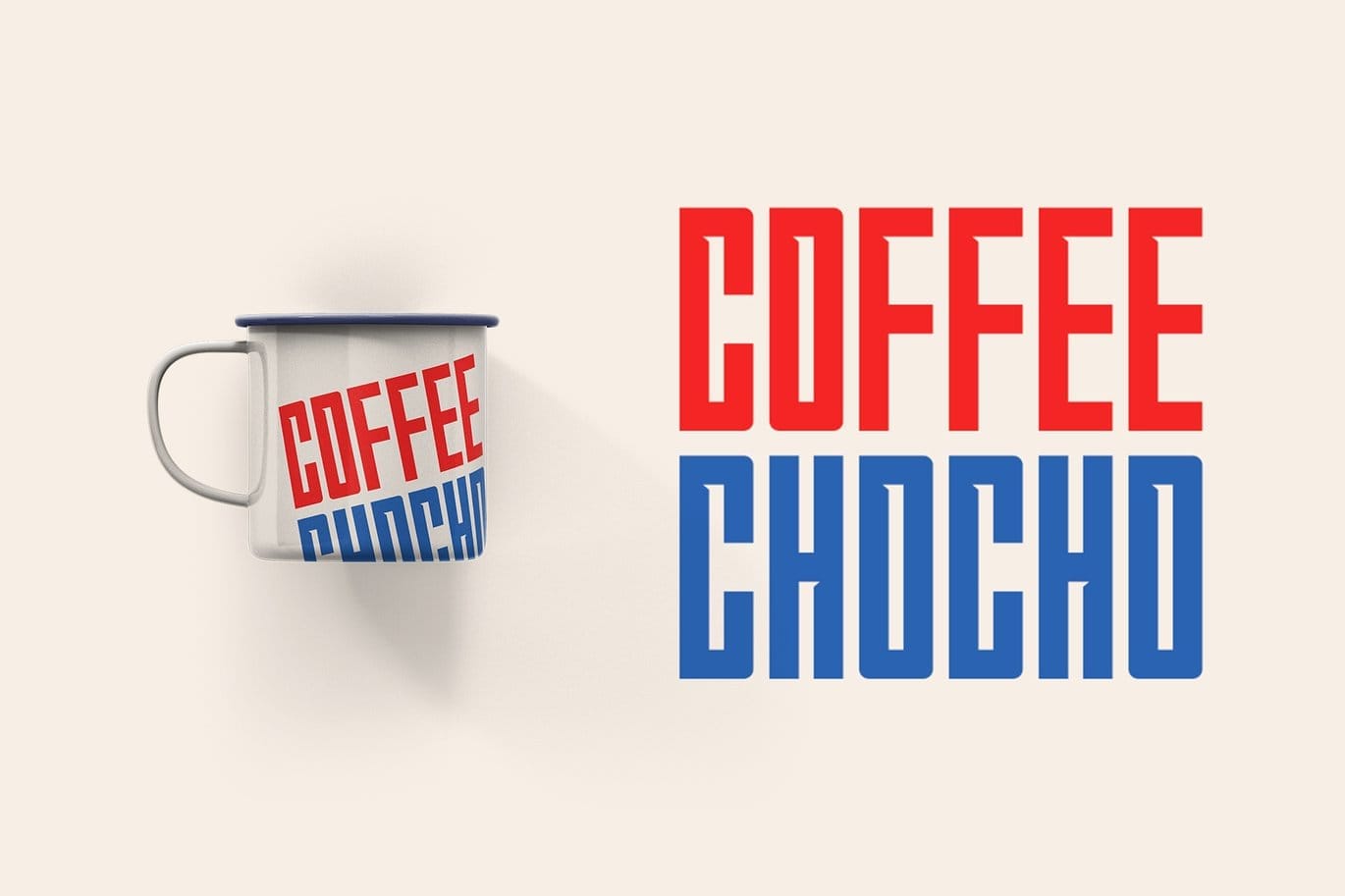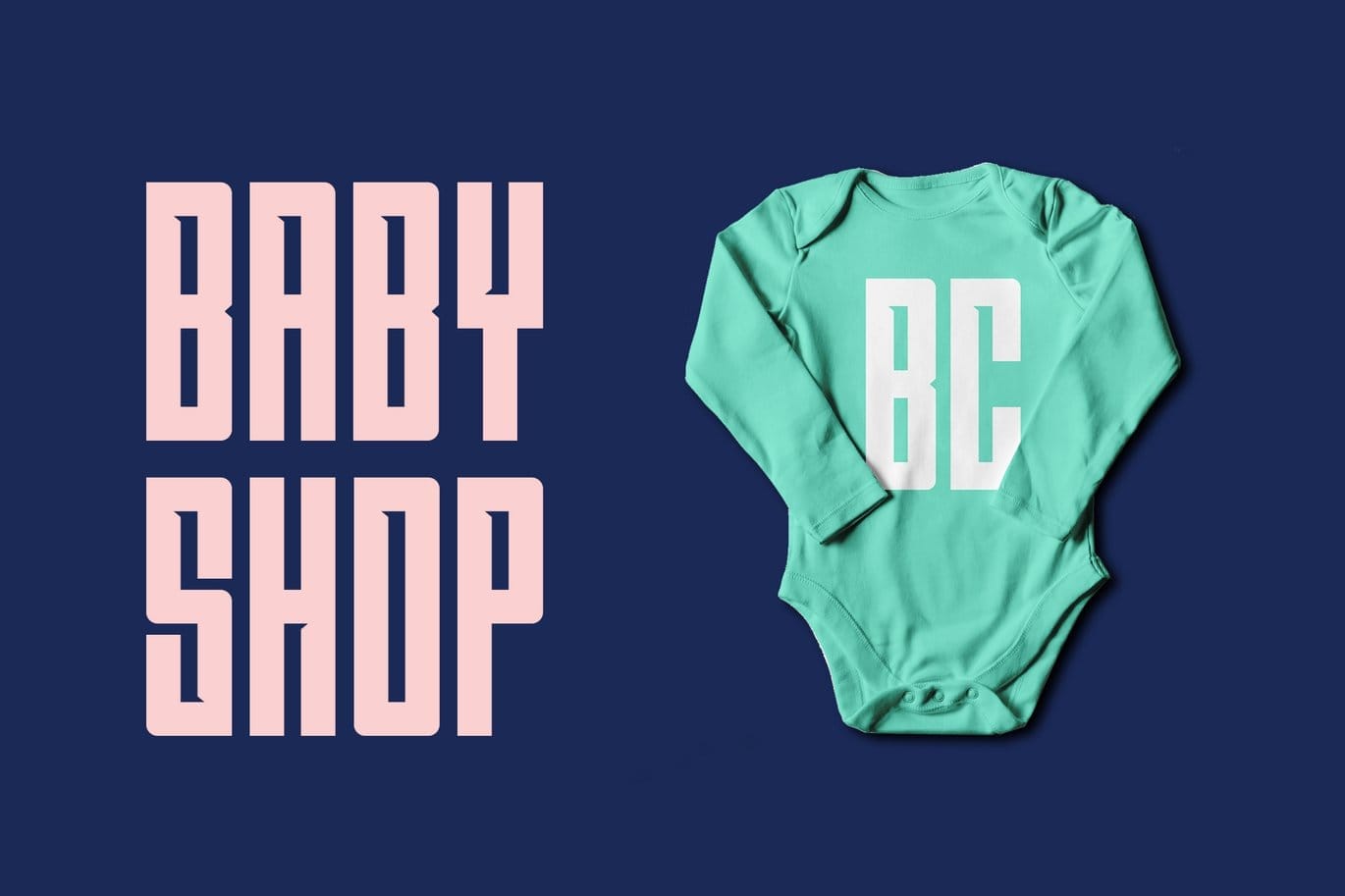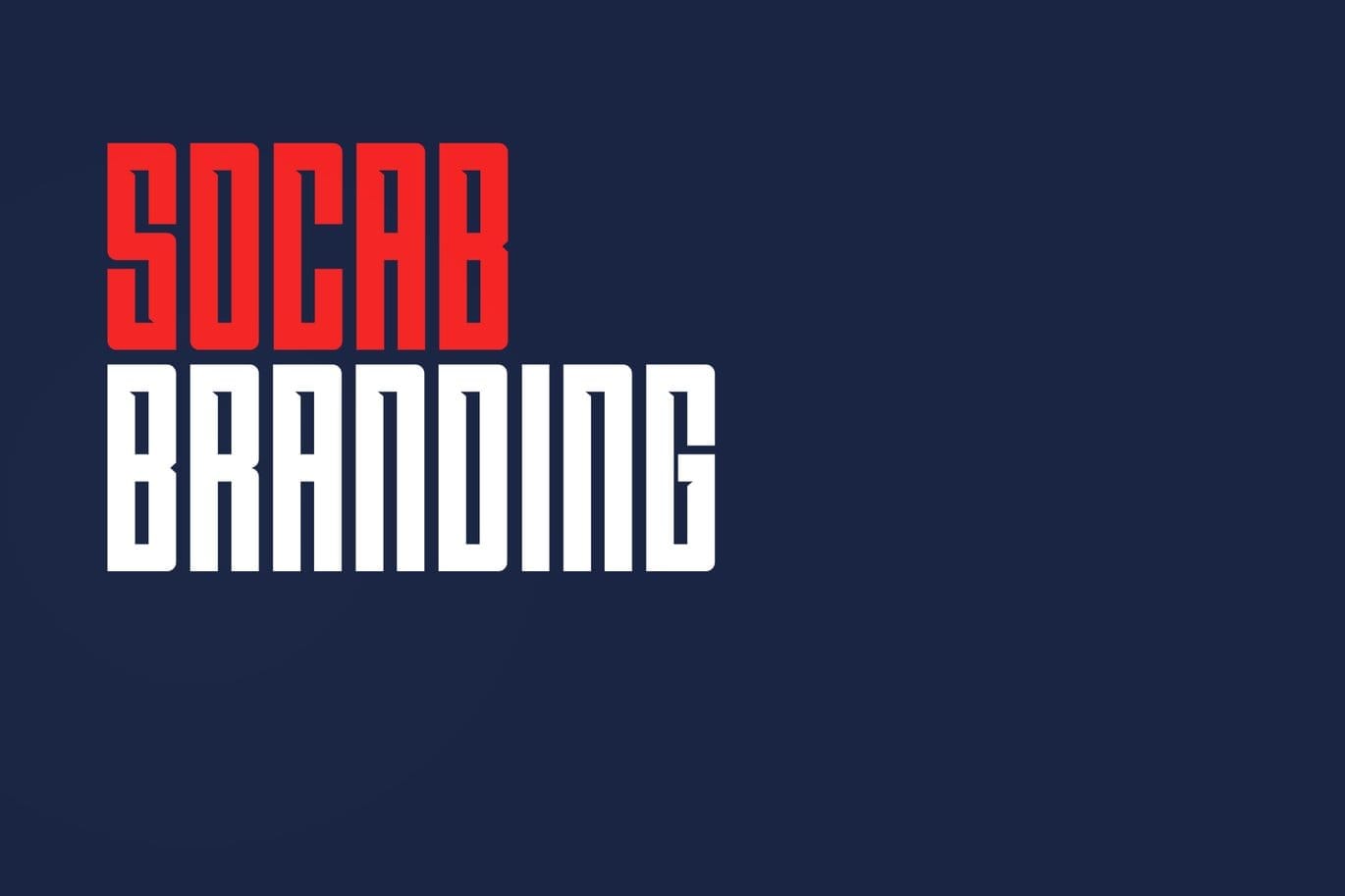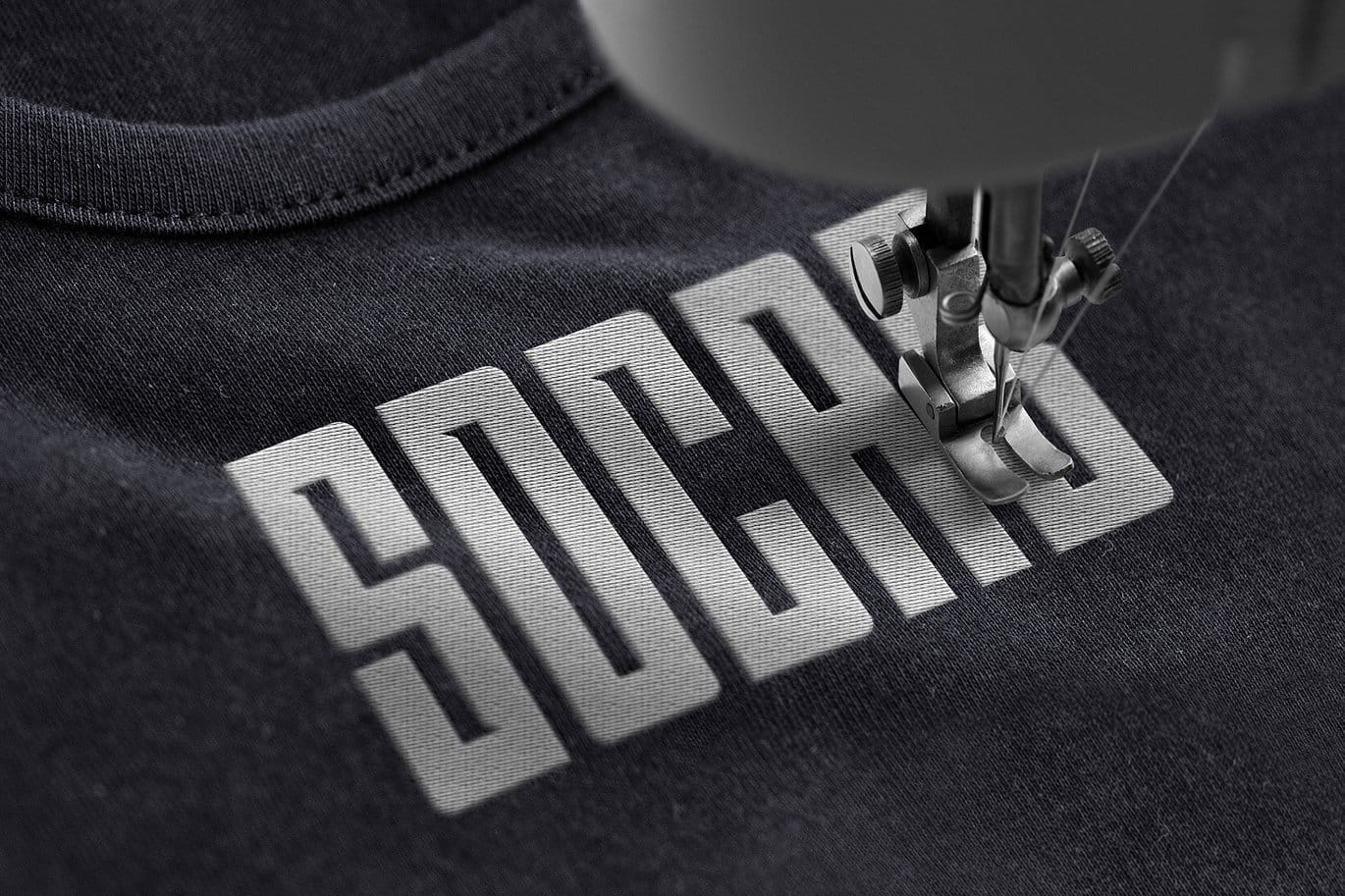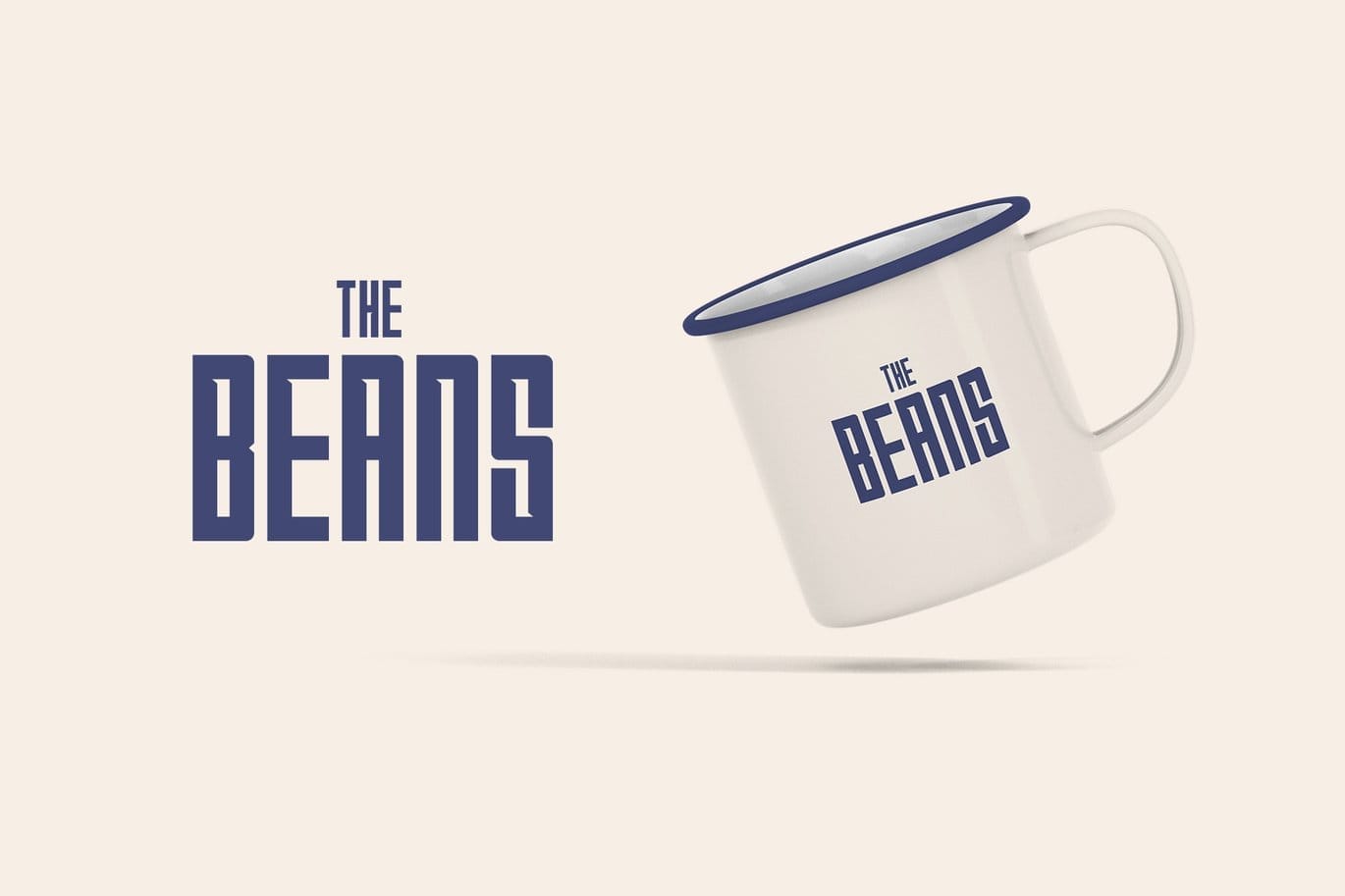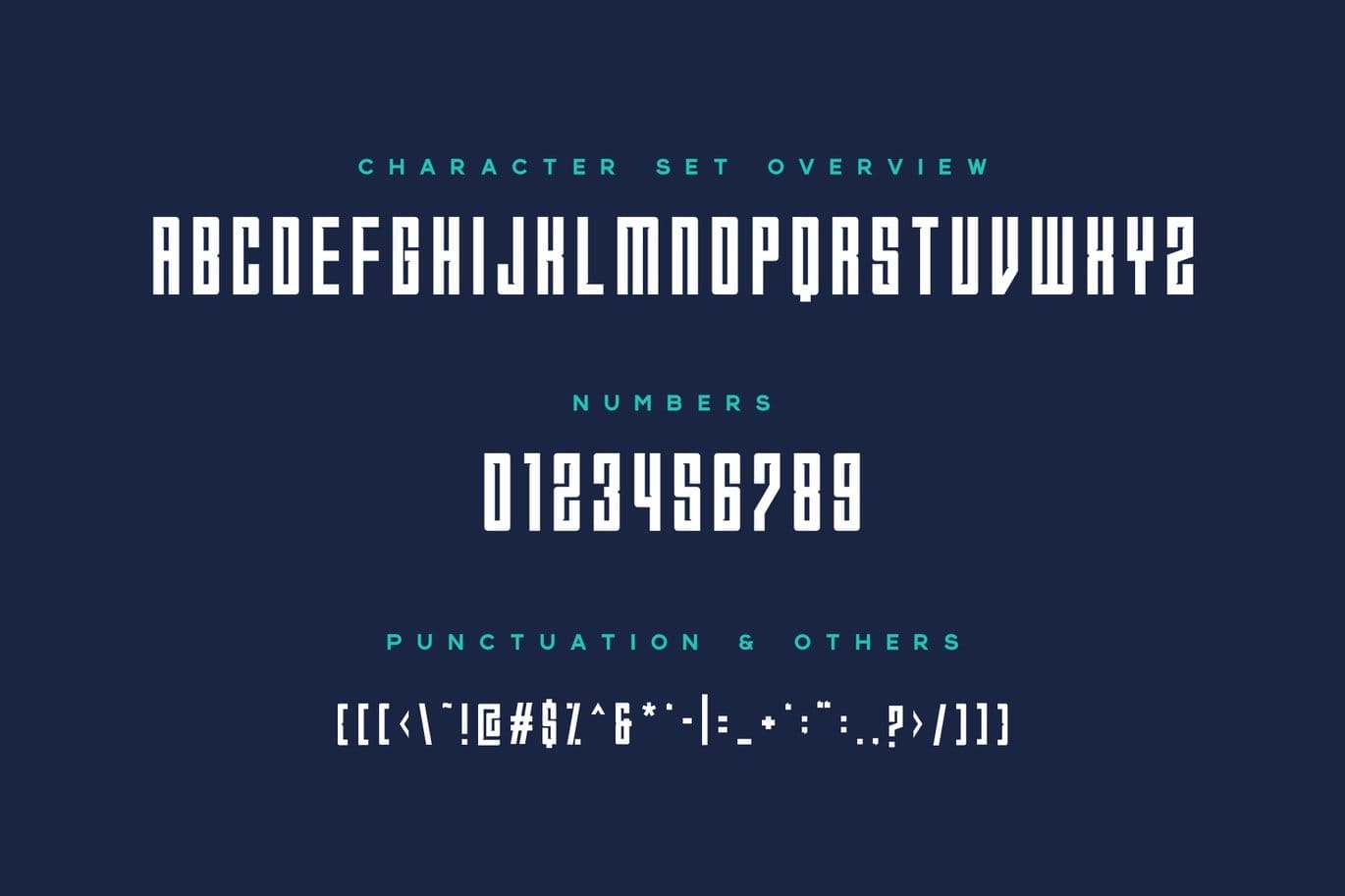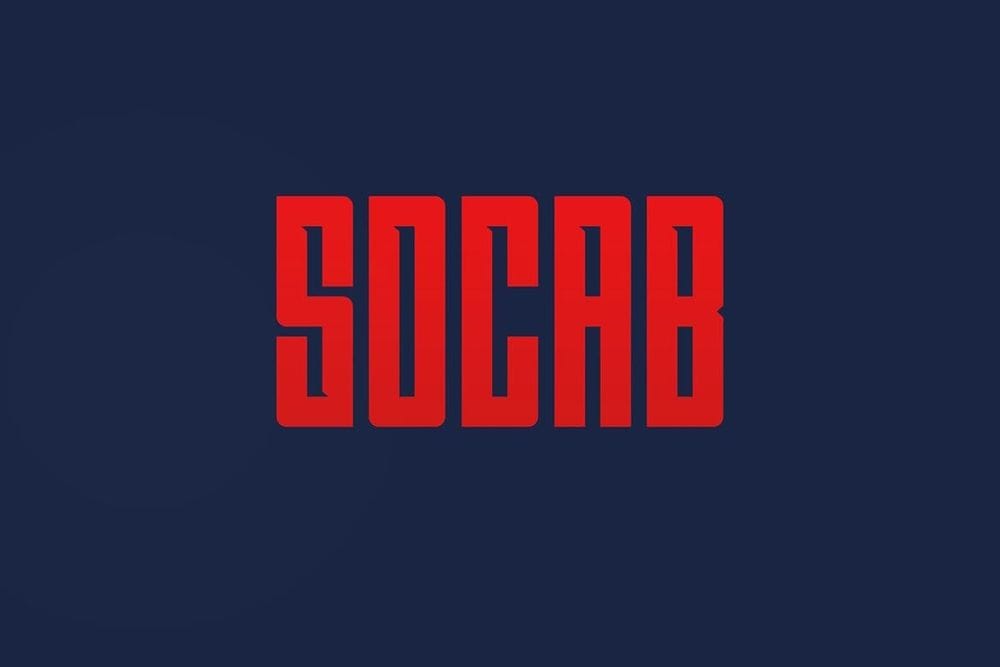
Socab Font
Please Note this font only uppercase.
Socab font is unique bold san serif. Perfect for any print product such a poster, flayer, t-shirt,etc. this font is match to create your branding product or personal project.